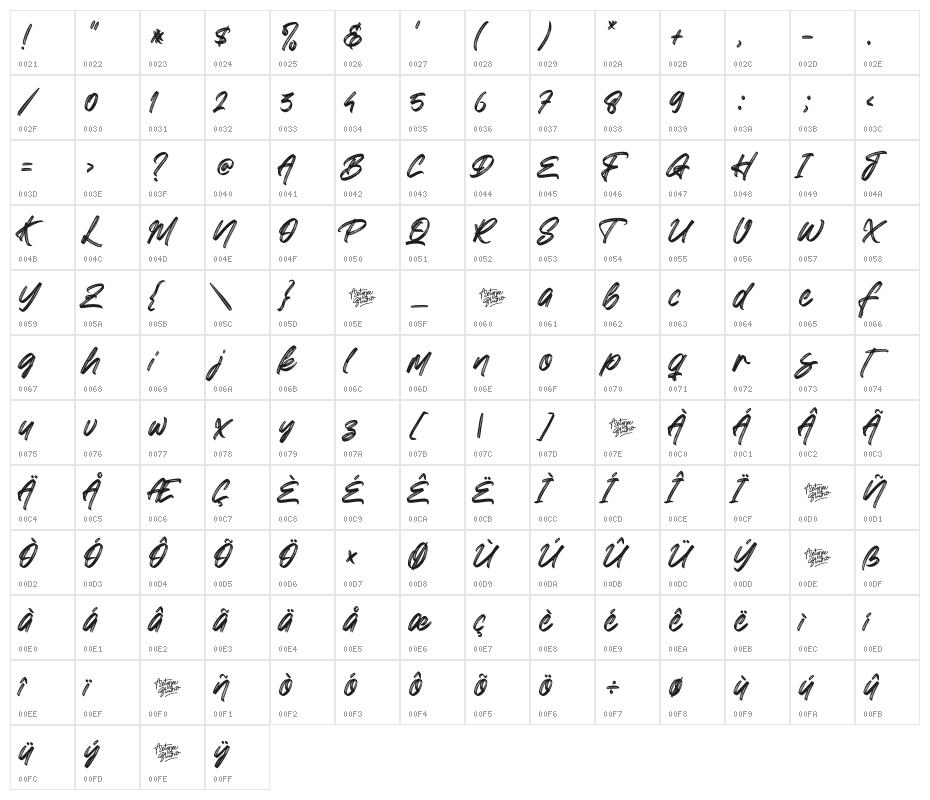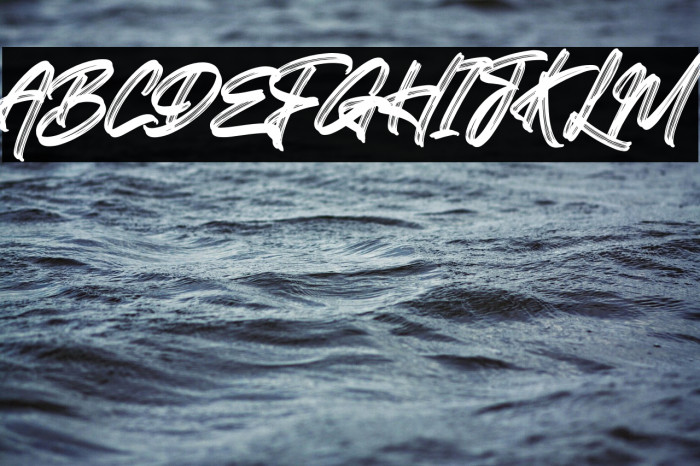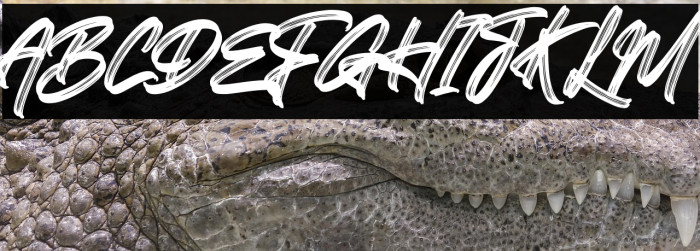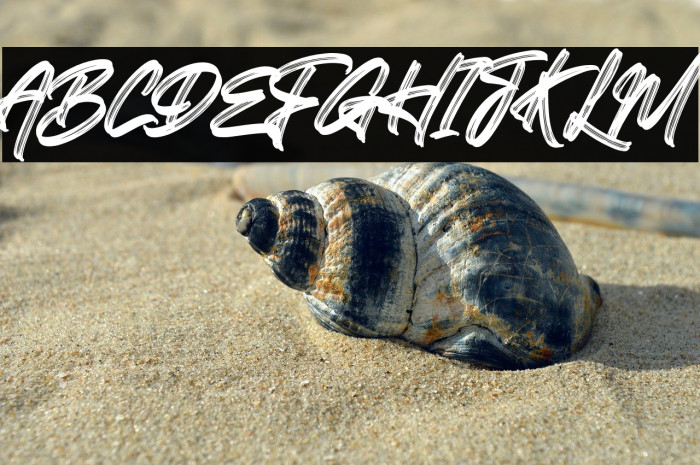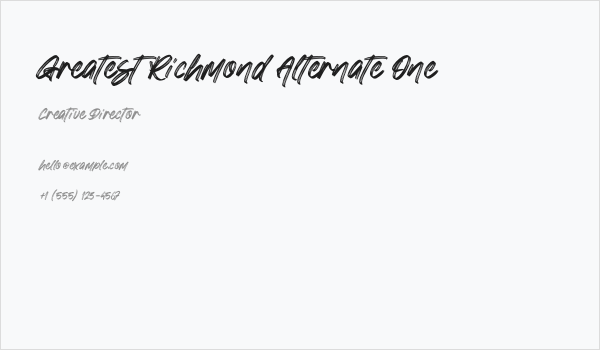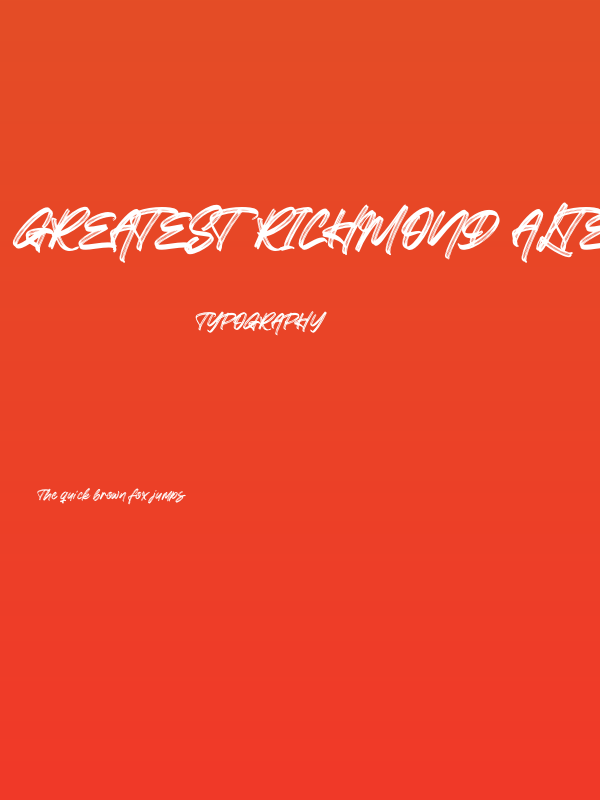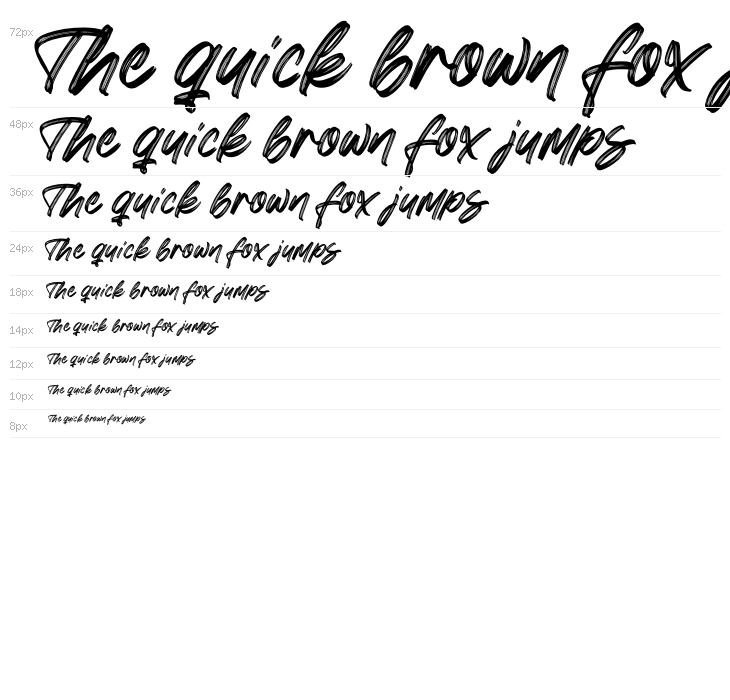
Greatest Richmond Alternate One Font
Greatest Richmond Alternate One Description
This font exudes a bold and dynamic handwritten style, characterized by its expressive and fluid strokes. The letters are crafted with a brush-like texture, giving them a lively and energetic appearance. The uppercase and lowercase letters maintain a consistent flow, with each character seamlessly connecting to the next. The numerals and special characters are equally expressive, maintaining the overall aesthetic of the font. This style is perfect for creating impactful and eye-catching designs that require a personal touch. Its unique character makes it suitable for projects that aim to convey creativity and individuality.